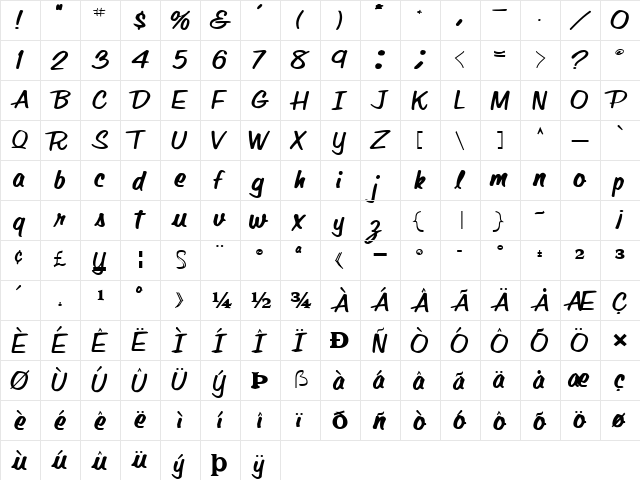
PaintStroke58 Bold Font Preview
PaintStroke58 Bold
Design Context for PaintStroke58 Typeface
PaintStroke58 is a composed and adaptable typeface that performs quietly and consistently across a wide range of design contexts. The heavy weight commands attention and anchors typographic hierarchies.